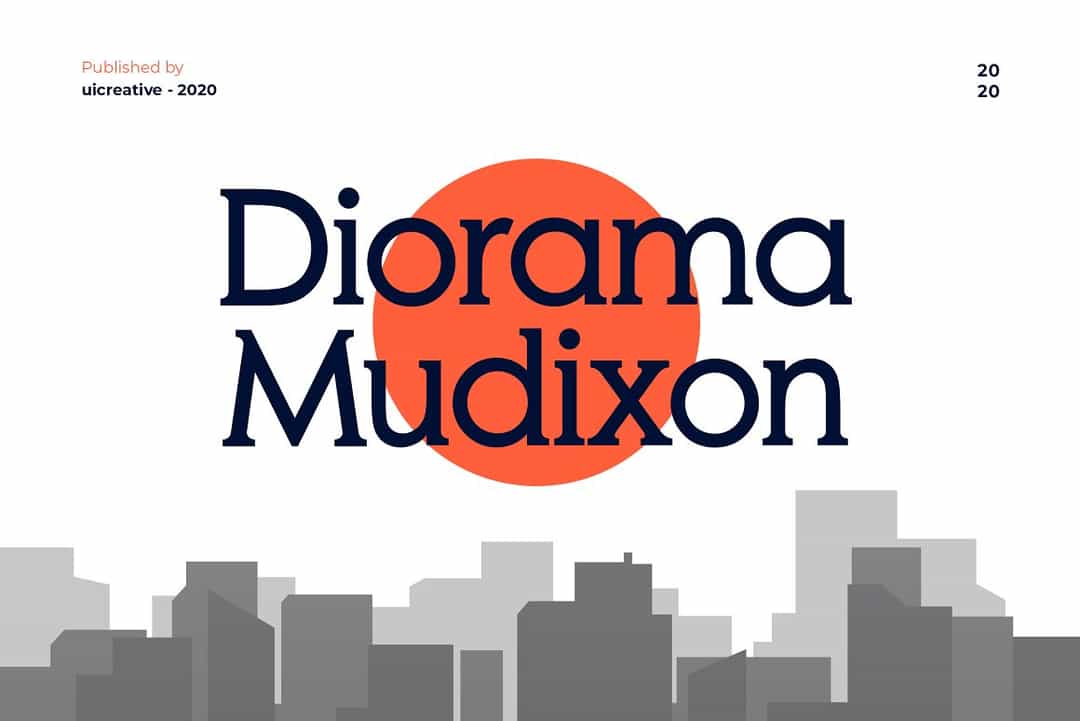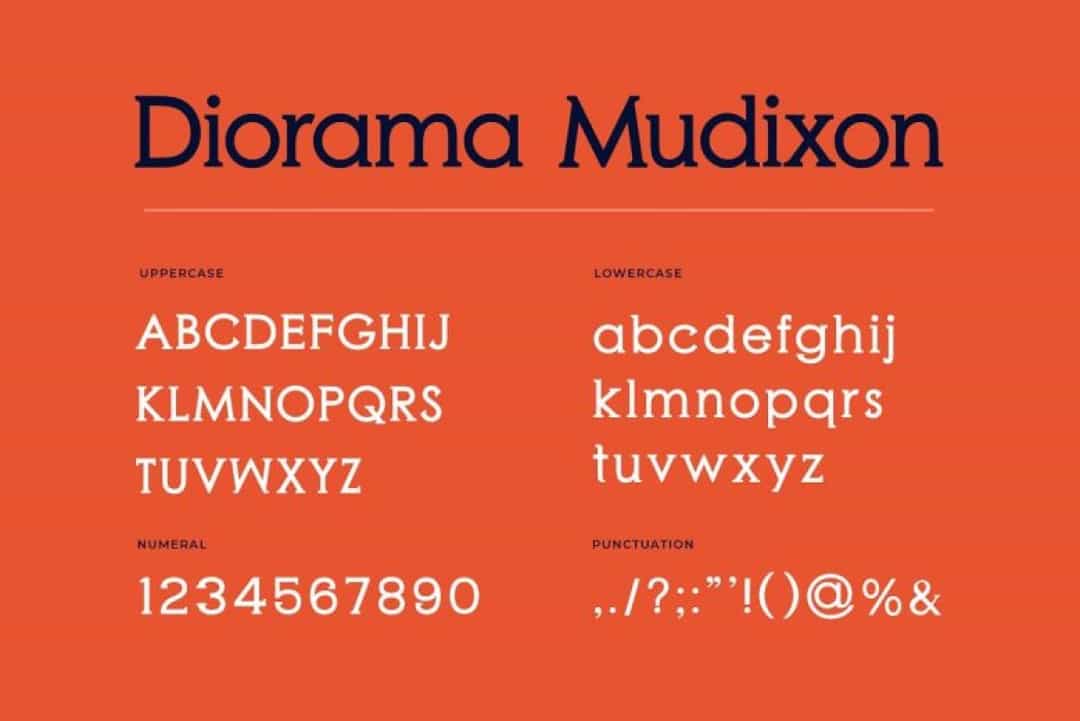
Discover Diorama Mudixon Font, part of the Serif Basic collection—a versatile and unique font perfect for adding a personal touch to your projects. Download it for free and enjoy crafting designs with style, from invitations to social media posts. This font is available exclusively for personal use, giving you the freedom to create without limits. Unlock your creativity with Diorama Mudixon Font today!
Diorama Mudixon by UICreative is an elegant serif font with multilingual support that’s ideal for use in stationary, signatures, wedding logos, typography quotes or book/magazine covers, headers of websites as well as clothing packaging design, branding projects and many other applications.